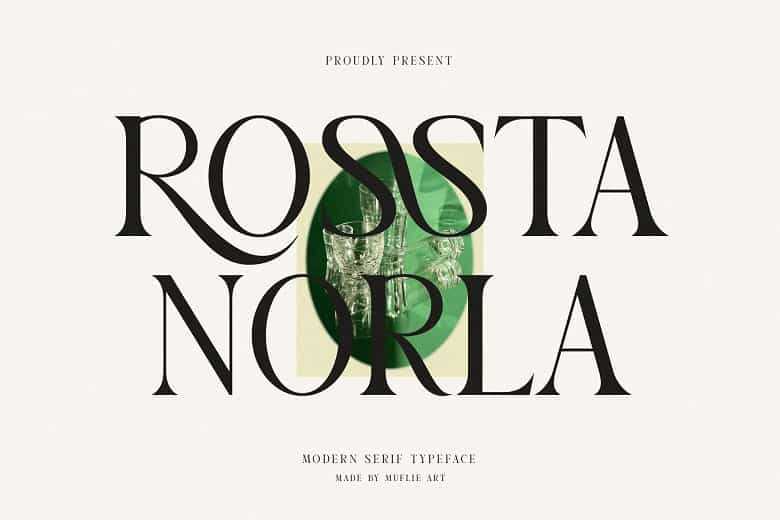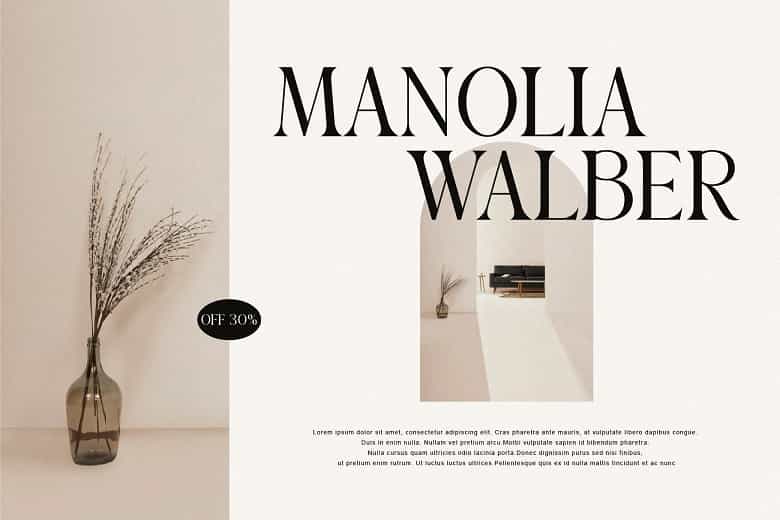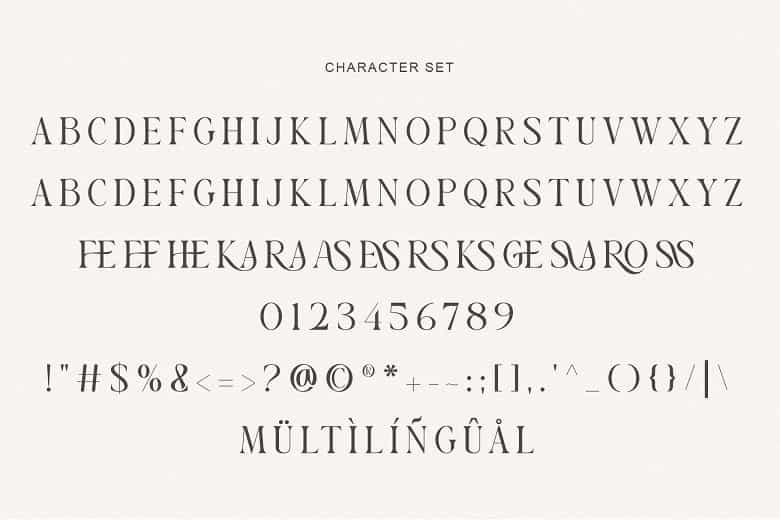
The typeface that is being presented here is ROSSTA NORLA which is a sleek and classy serif font. ROSSTA NORLA is a modern and clean font which will give a luxurious and elegant look to your projects like websites, logos, branding, social media posts, wedding invitation and more!